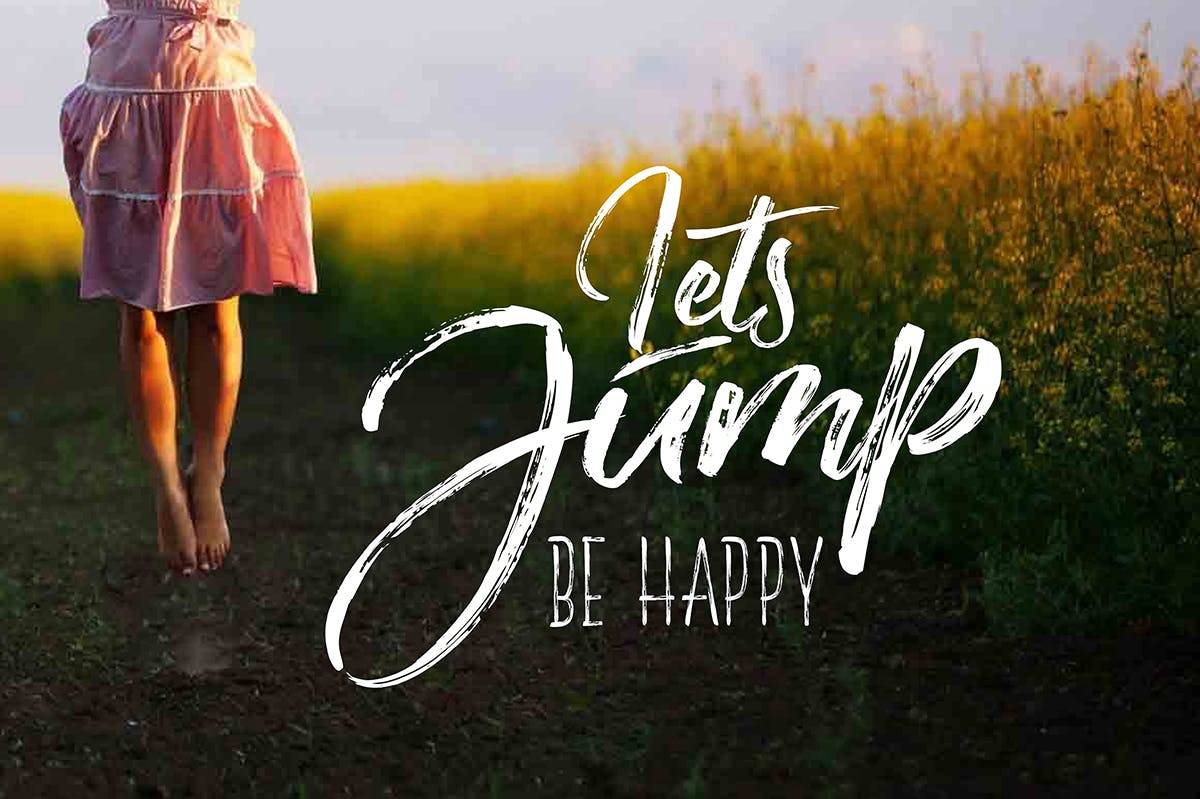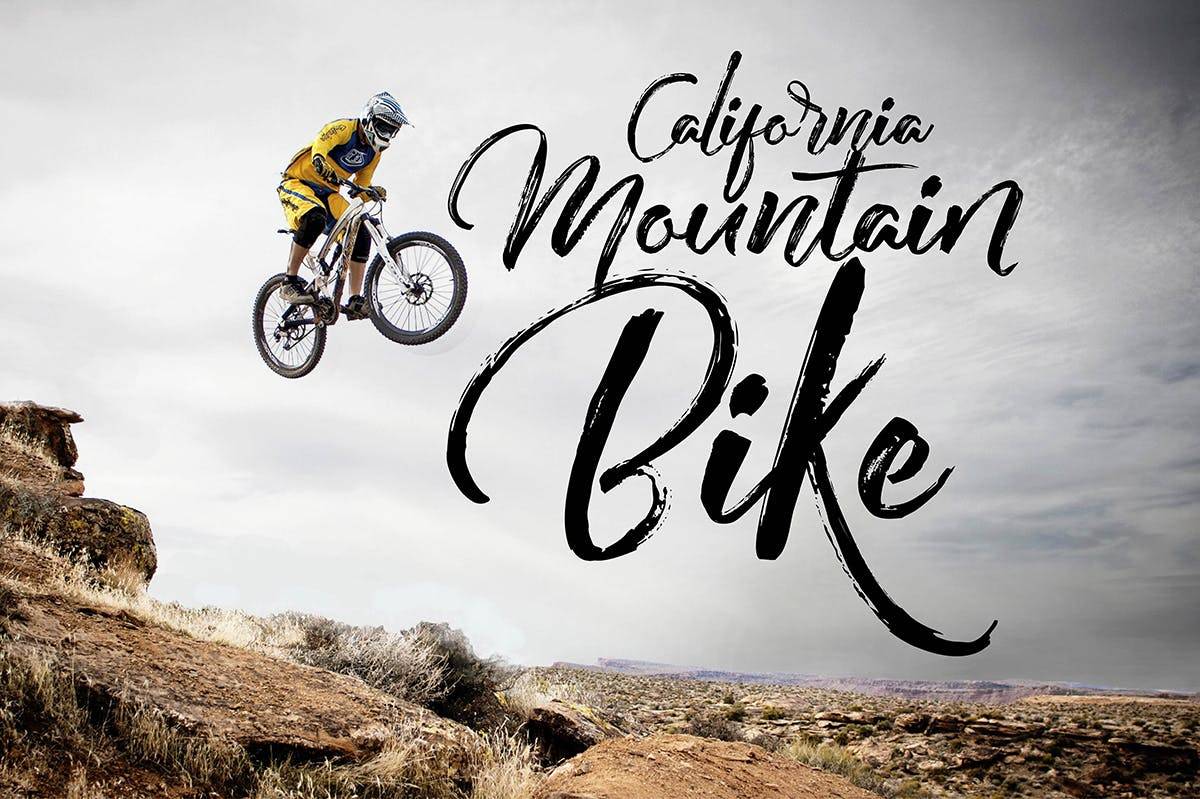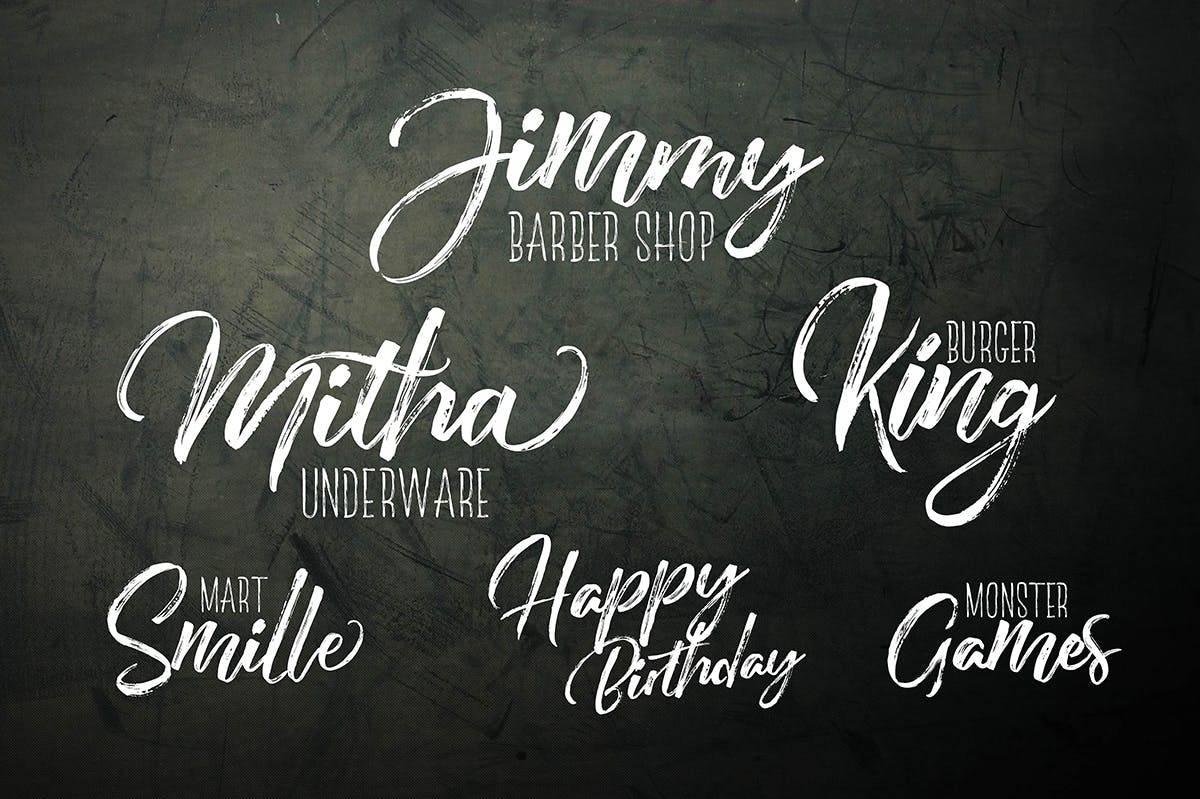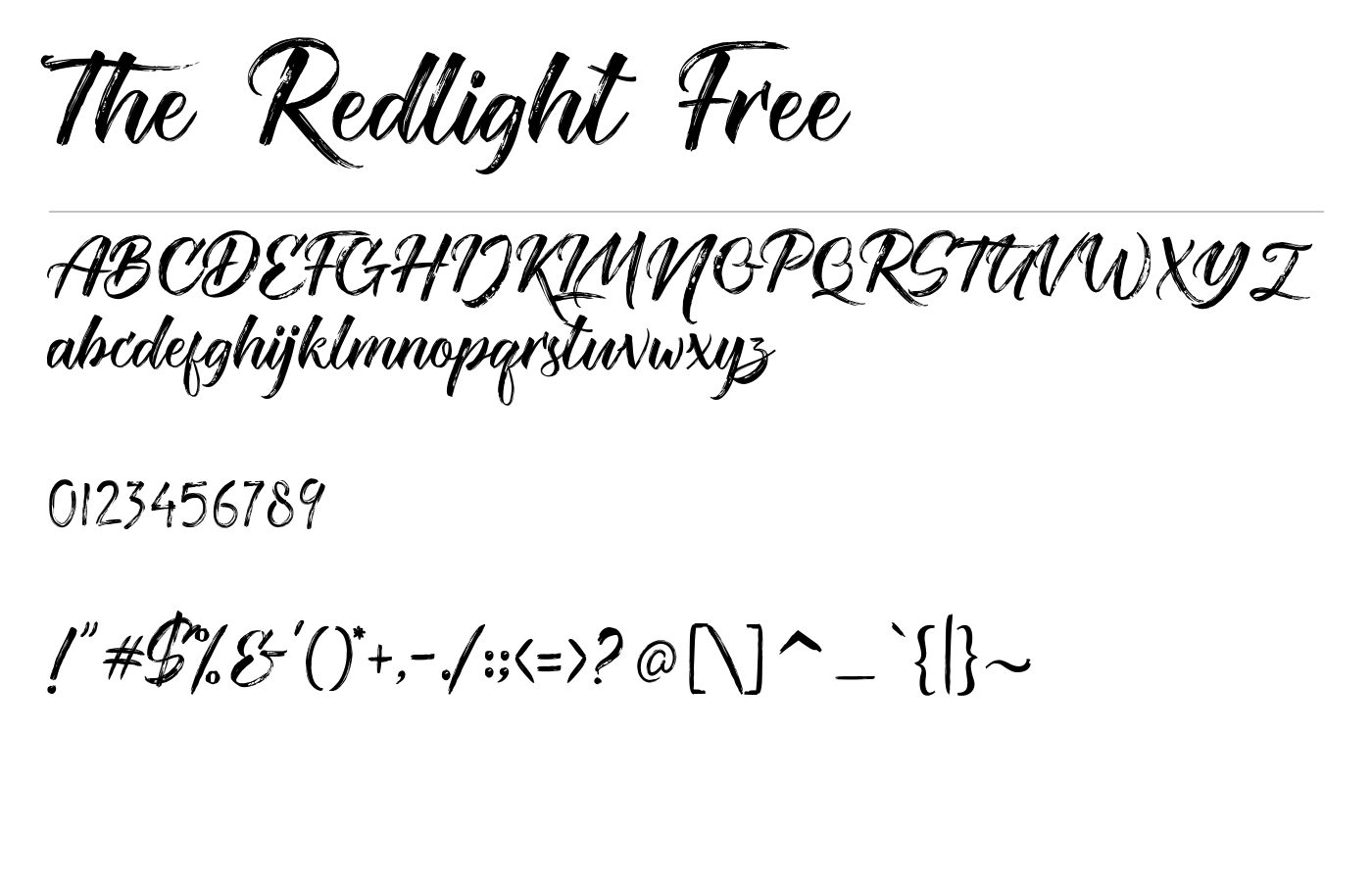
Redlight Script Demo is an expressive, brush-style script font that brings a lively, hand-painted feel with its textured, slightly rough strokes and dynamic letterforms. Its casual yet elegant vibe makes it perfect for creative projects like logos, invitations, and branding that want to convey personality and artistic flair. This font shines in headlines or display use where its unique, energetic style can fully stand out.
Redlight Script Demo
About Redlight Script Demo
| Font family | Redlight Script Demo |
| Designer | Olexstudio |